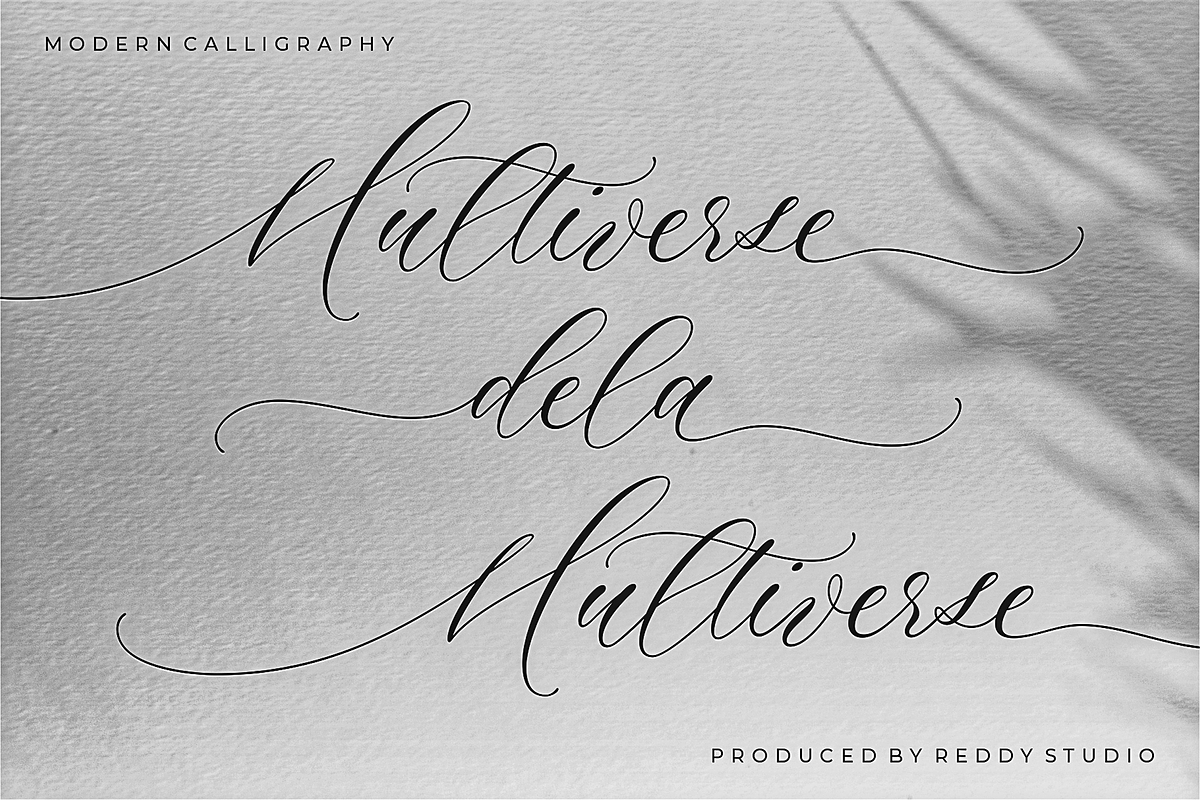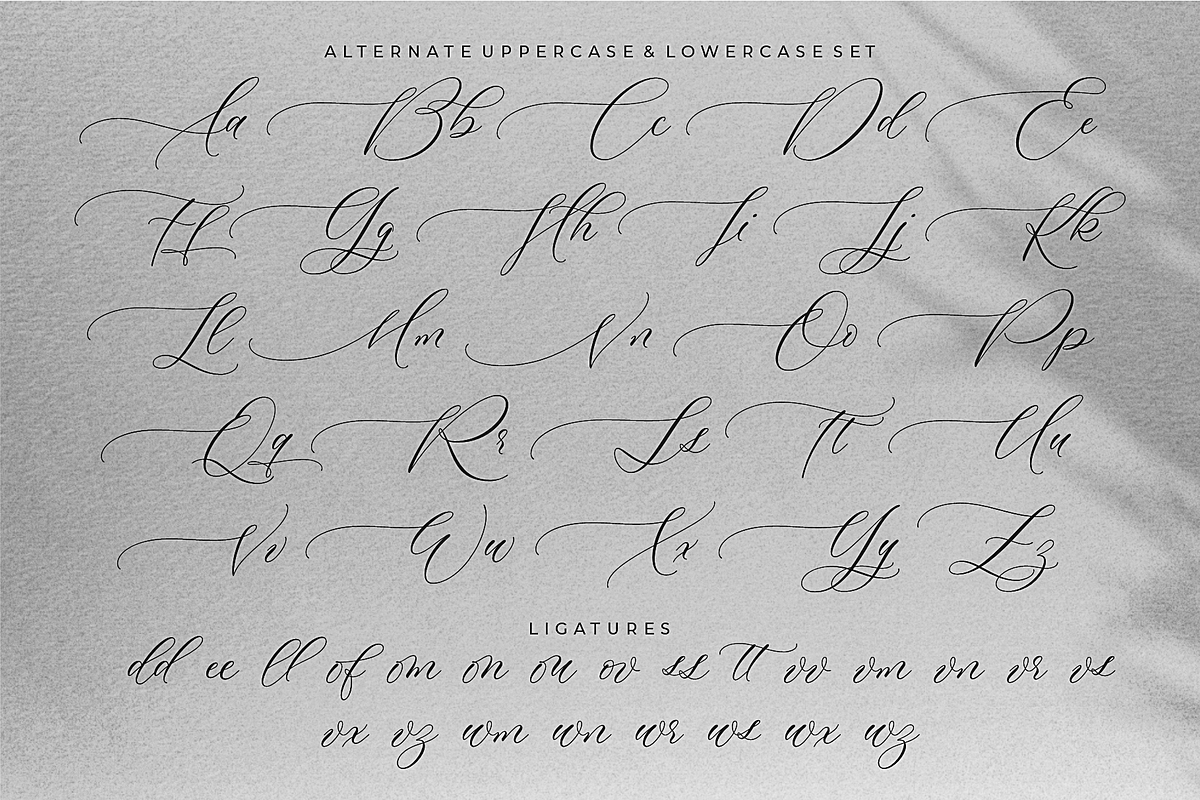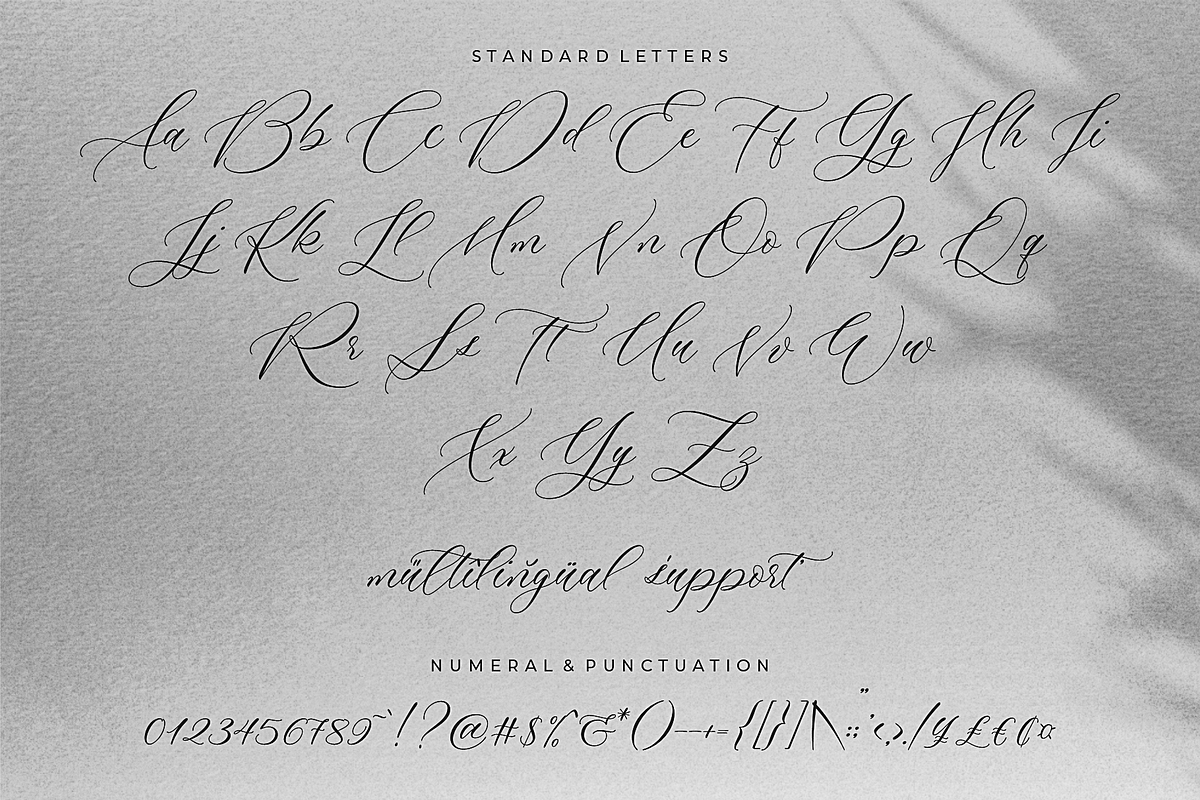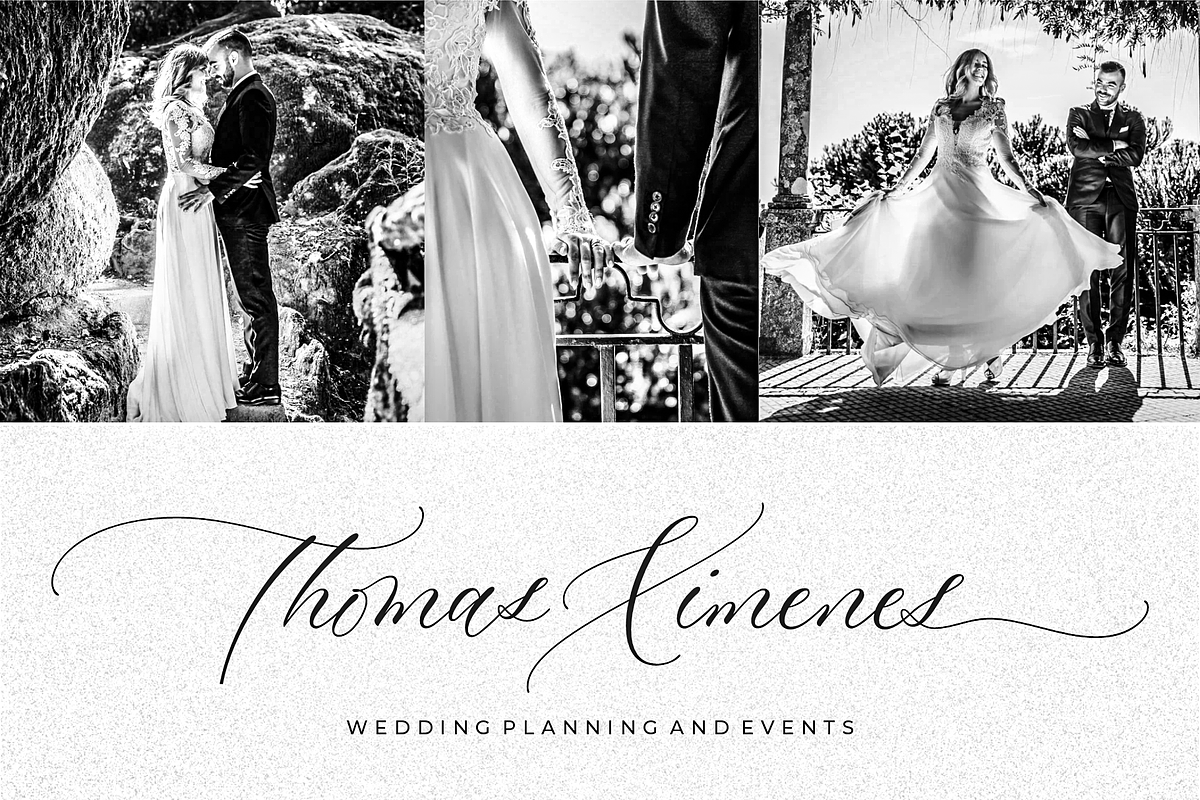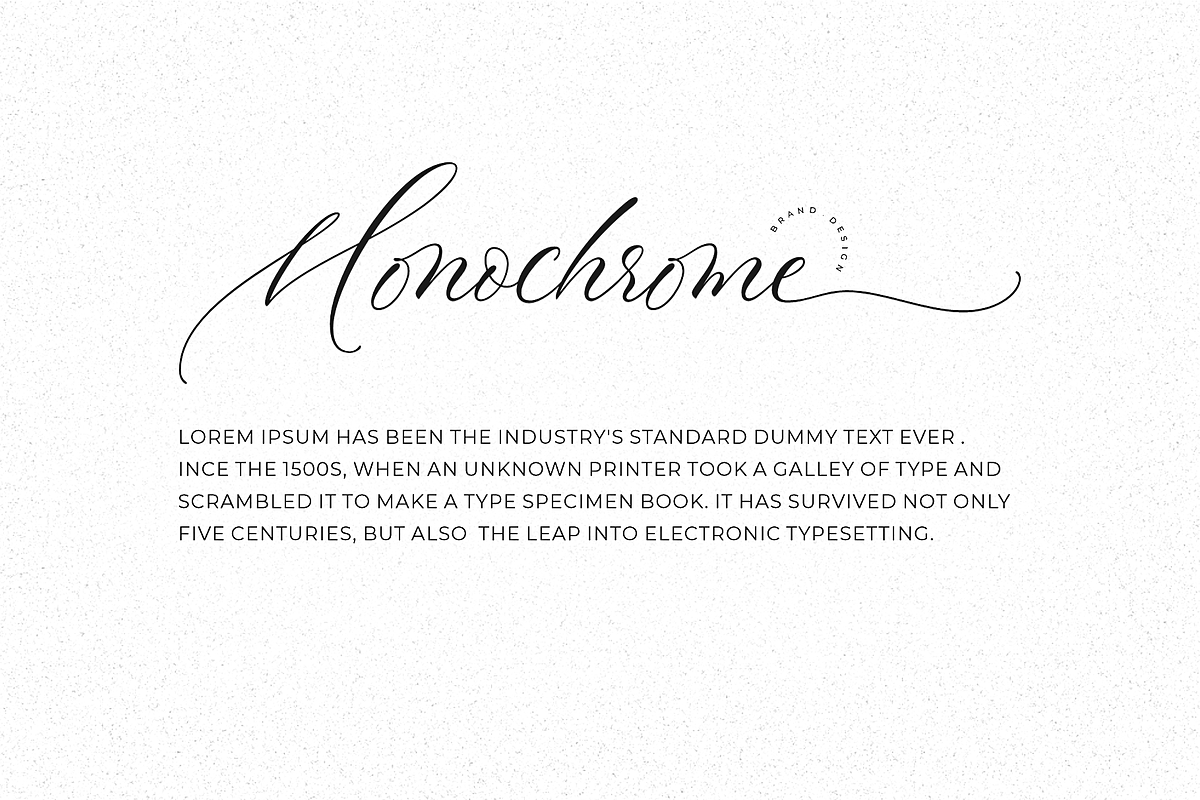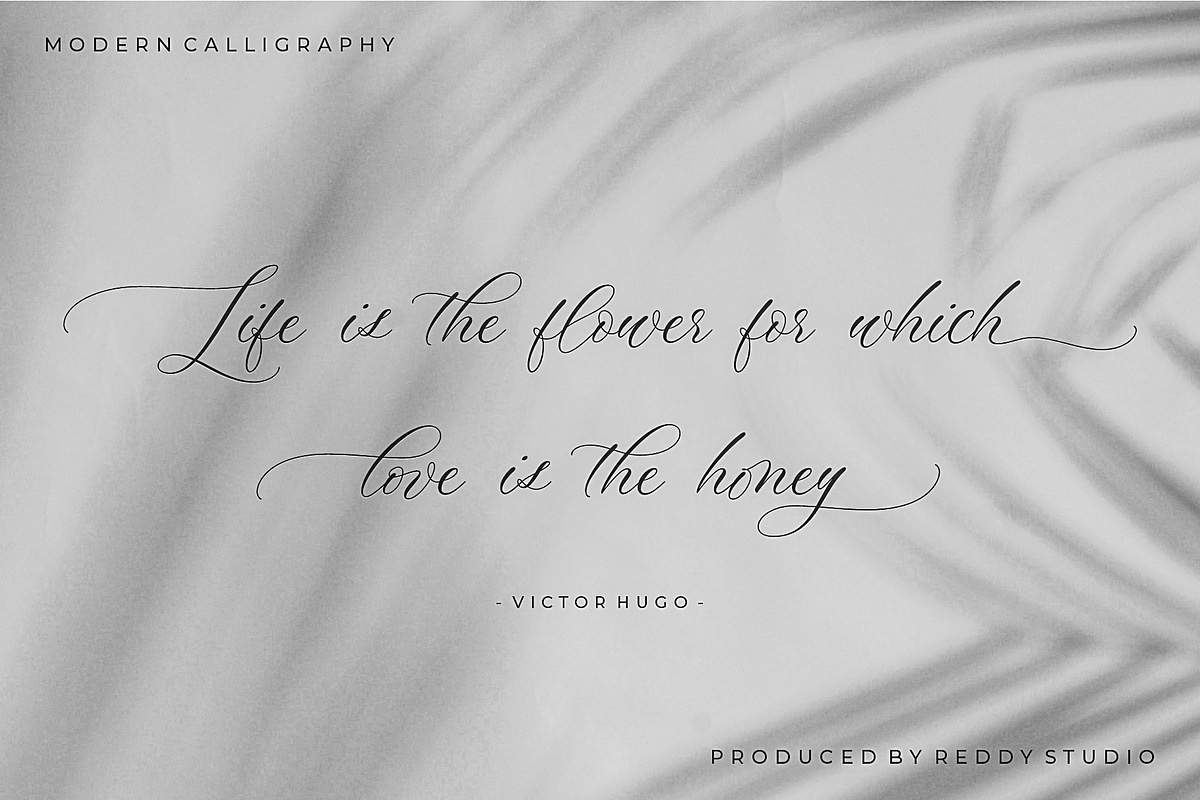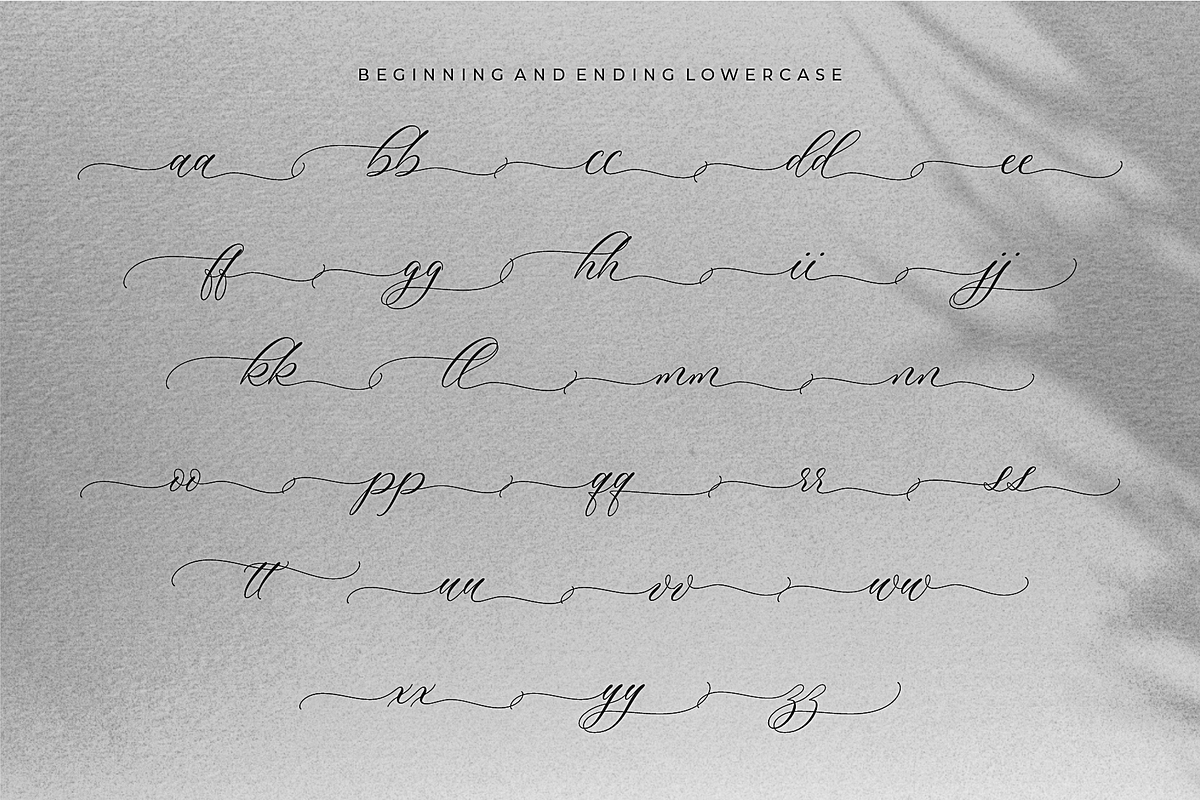
Multiverse – Luxurious Script Font
Fashion and luxury are the first things that come to mind when you see or hear this font. Multiverse is an authentic and luxurious font that is dynamic with a hand-drawn stroke. It is full of life and movement which will add a modern sensibility to your graphic designs. Think runway shows, model and designer photography, fashion mags, beauty, cosmetics, and jewelry marketing campaigns. See how good it looks in tandem with other script font styles? Watch out because consumer appetite for luxe products is at an all-time high! This curly font can also be used for wedding invitations or to define your blog header.
Multiverse features:
- A full set of upper & lowercase characters
- 23 Gorgeous ligatures
- Uppercase beginning swashes
- Lowercase beginning swashes
- Lowercase ending swashes
- Lowercase alternates characters
- Multilingual symbols